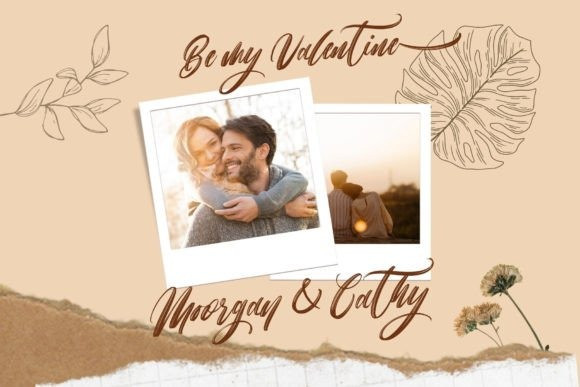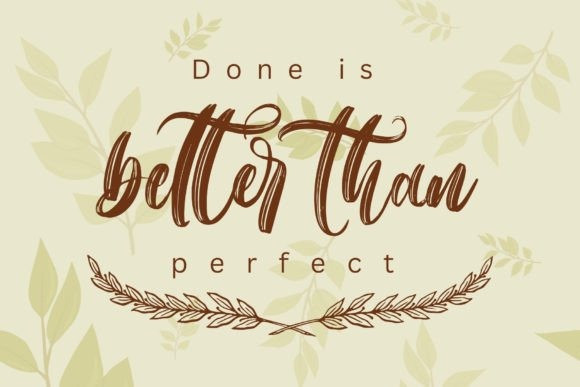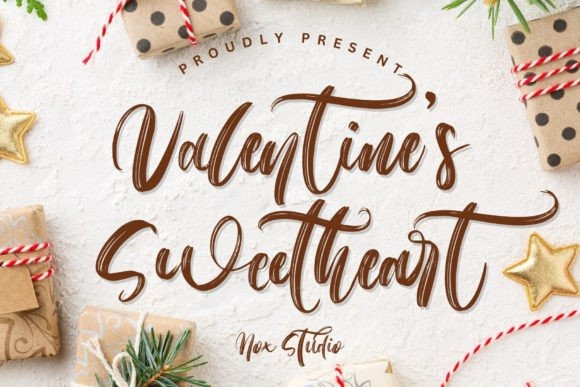
Valentine’s Sweetheart Script Font
Valentine’s Sweetheart Script Font a captivating handwritten typeface that breathes the very essence of romance, making it the ideal choice for your Valentine’s season projects. Effortlessly enhance your logos, branding, and inspirational quotes with its unique, timeless charm.
This elegant font is PUA encoded, giving you effortless access to its entirety of glyphs and sweeps. With Valentine’s Sweetheart, your Valentine’s day design tasks just got a whole lot easier and aesthetically pleasing.